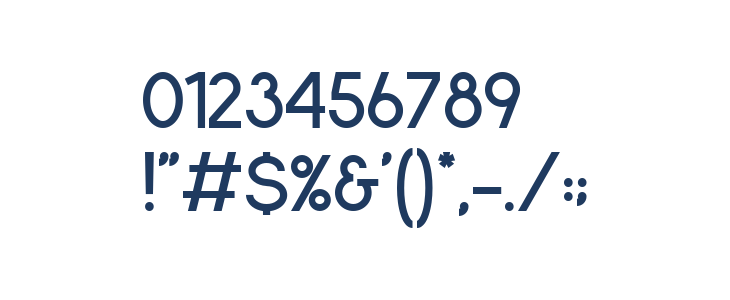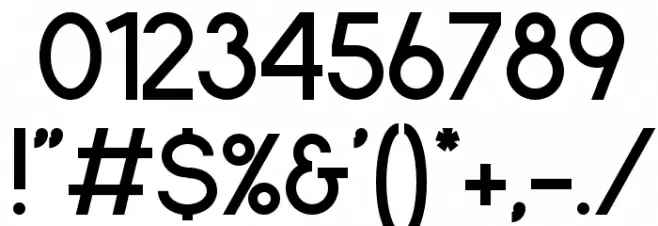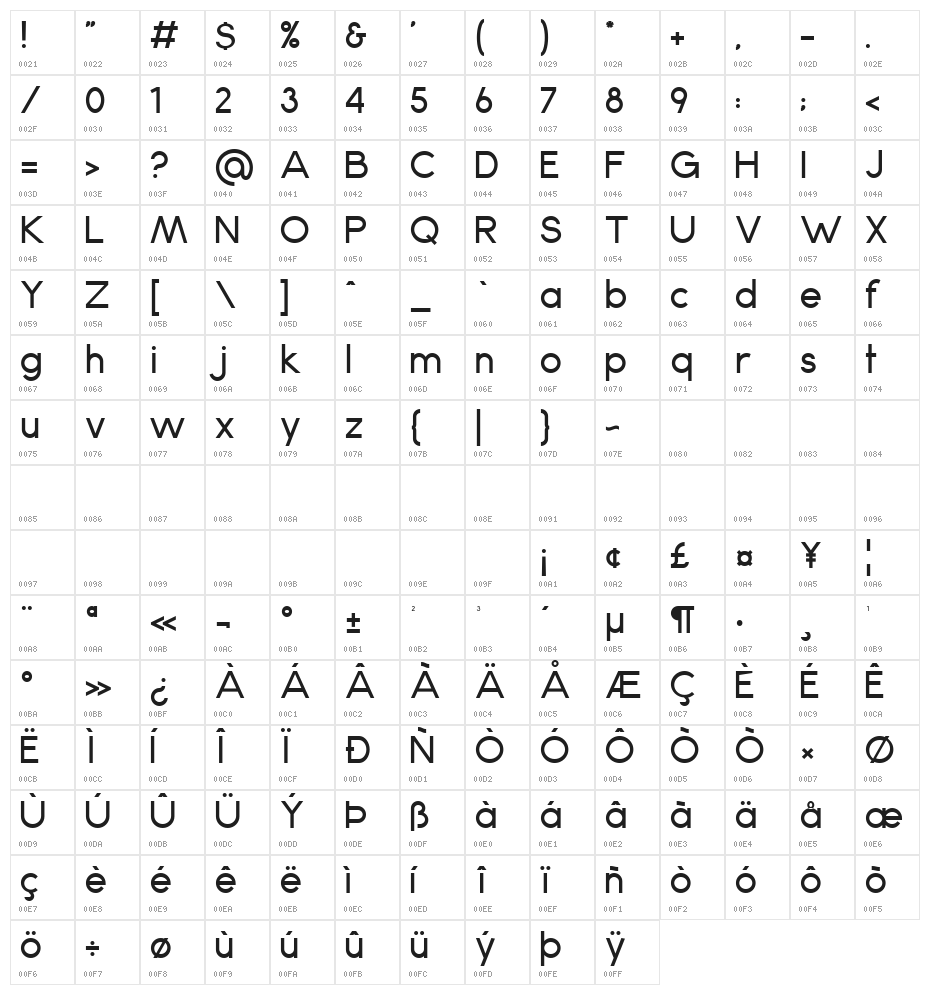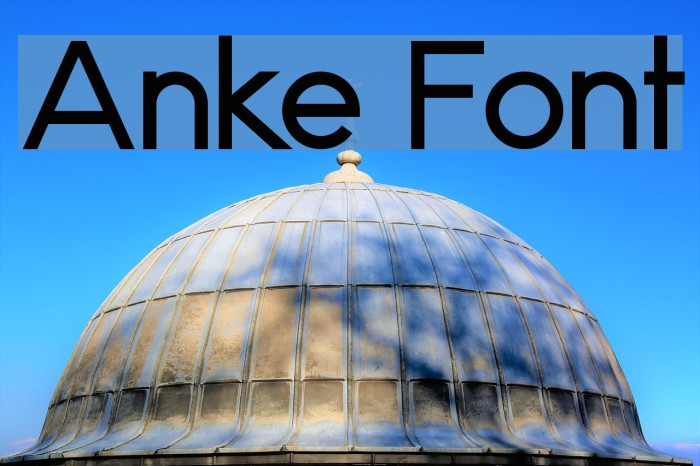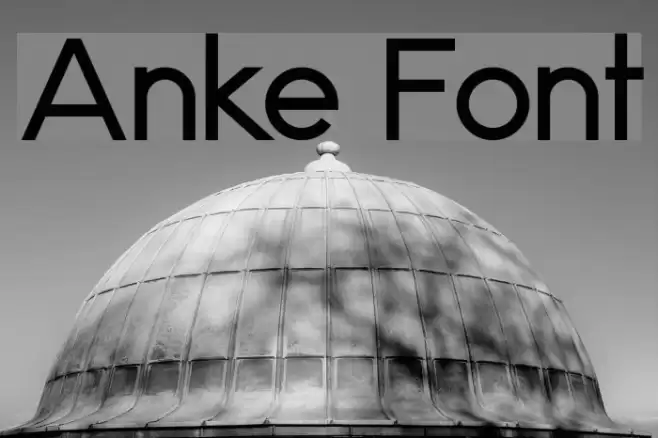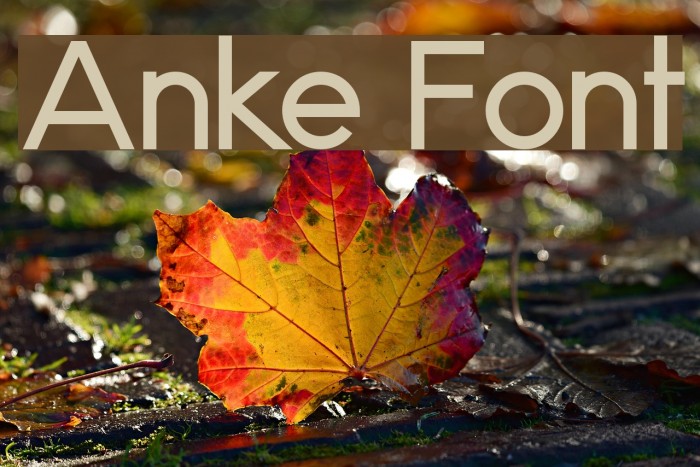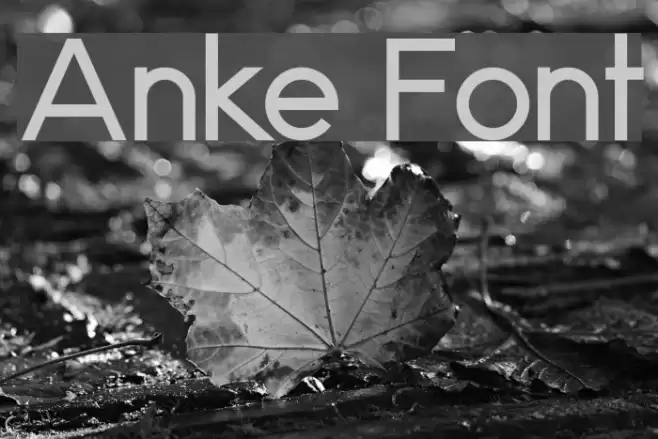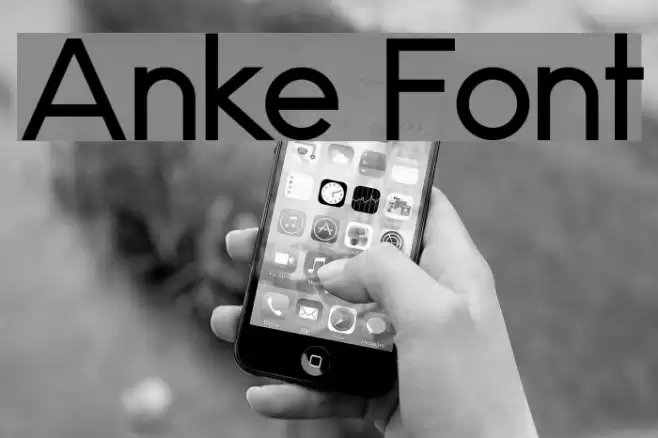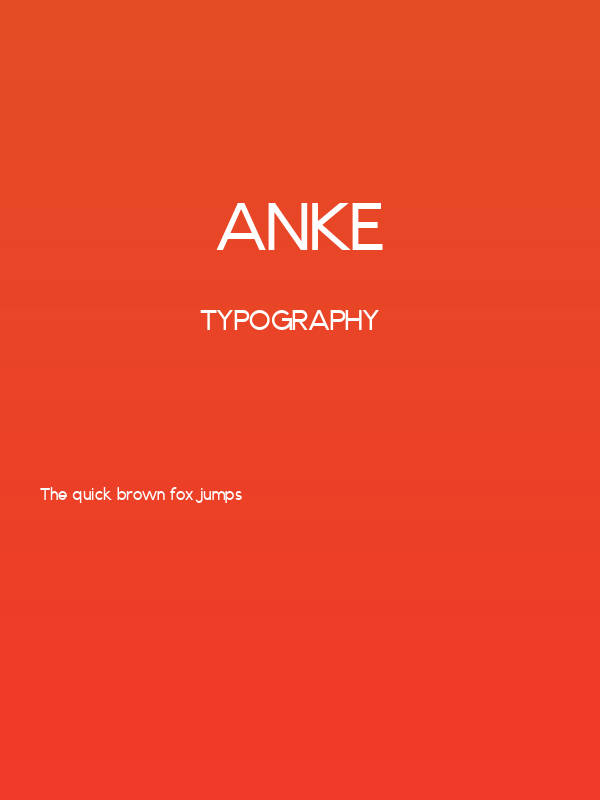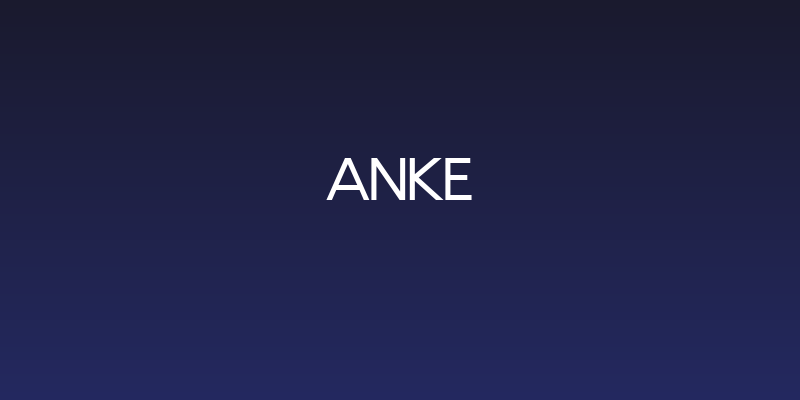
Anke Font
Anke Description
This font features a clean and modern sans-serif design, characterized by its geometric shapes and uniform stroke widths. The uppercase letters are bold and assertive, while the lowercase letters maintain a consistent roundness, offering a friendly and approachable appearance. The numerals are clear and easy to read, making them suitable for various applications. The special characters are well-integrated, maintaining the overall aesthetic of the font. Its simplicity and clarity make it versatile for both digital and print media.